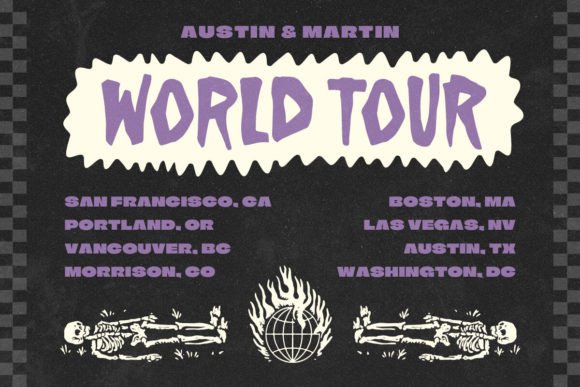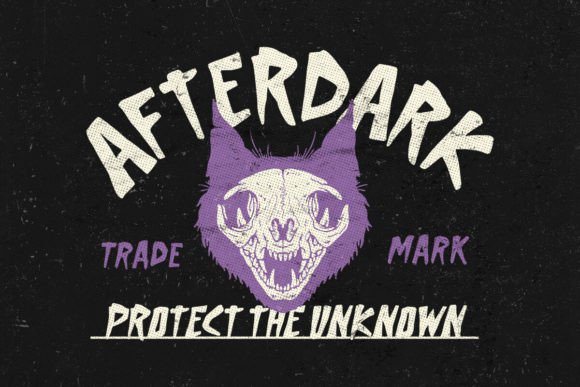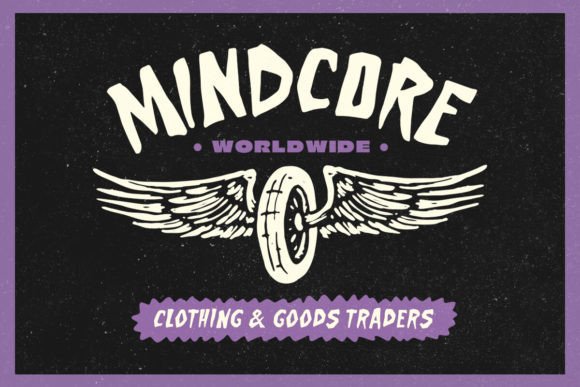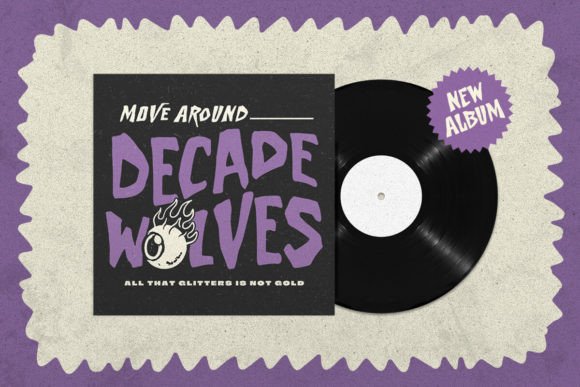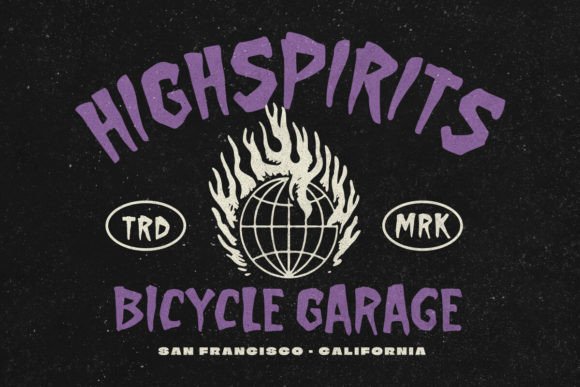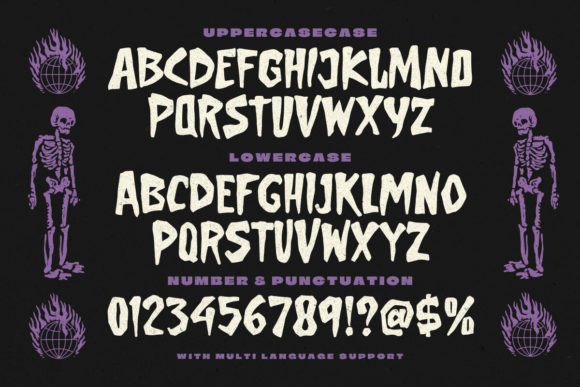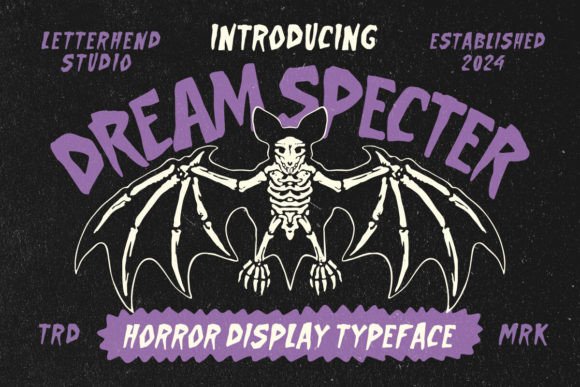
Dream Specter Font: Unleash the Horror in Your Designs
Are you a designer or craft looking for a unique and eerie font to add a touch of horror to your designs? Look no further than the Dream Specter Font, a display typeface font that embodies the spirit of horror and thriller themes. In this article, we’ll introduce you to this fascinating font, explore its features, and discuss how it can elevate your designs to the next level.
Introducing Dream Specter Font
Dream Specter is a display typeface font designed to evoke a sense of eeriness and foreboding. Its unique shape and twisted style make it perfect for horror, thriller, and spooky theme designs. Whether you’re working on a logo, invitation, label, or any other design project, this font is sure to make a lasting impression.
Key Features of Dream Specter Font
- Unique Shape: Dream Specter Font boasts a distinctive shape that’s unlike any other font out there. Its twisted and curved lines create a sense of unease, making it perfect for horror-themed designs.
- Horror Feel: This font is designed to evoke a sense of horror and thriller, making it ideal for designers who want to create spooky and eerie designs.
- Versatile: Dream Specter Font is not just limited to horror designs. It can also be used for thriller, spooky, and other themed projects.
- Perfect for Logos: The font’s unique shape and style make it perfect for logos, especially those that require a bold and eye-catching design.
Use Cases for Dream Specter Font
Dream Specter Font is a versatile font that can be used in various design projects, including:
- Logos: Create a bold and eye-catching logo for your horror-themed business or project.
- Invitations: Design spooky and eerie invitations for horror-themed parties or events.
- Labels: Create labels for horror-themed products or packaging.
- Magazines and Books: Use Dream Specter Font to create eye-catching titles and headings for horror-themed magazines and books.
- Advertising: Use this font to create bold and attention-grabbing ads for horror-themed products or services.
Why Choose Dream Specter Font?
So, why should you choose Dream Specter Font for your design projects? Here are a few reasons:
- Unique Style: Dream Specter Font offers a unique and distinctive style that’s sure to make your designs stand out.
- Eerie and Foreboding: This font is designed to evoke a sense of eeriness and foreboding, making it perfect for horror-themed designs.
- High-Quality: Dream Specter Font is a high-quality font that’s designed to deliver exceptional results.
In conclusion, Dream Specter Font is a unique and versatile font that’s perfect for designers and crafters who want to add a touch of horror to their designs. With its distinctive shape, eerie feel, and high-quality design, this font is sure to elevate your designs to the next level. Whether you’re working on a logo, invitation, label, or any other design project, Dream Specter Font is an excellent choice.